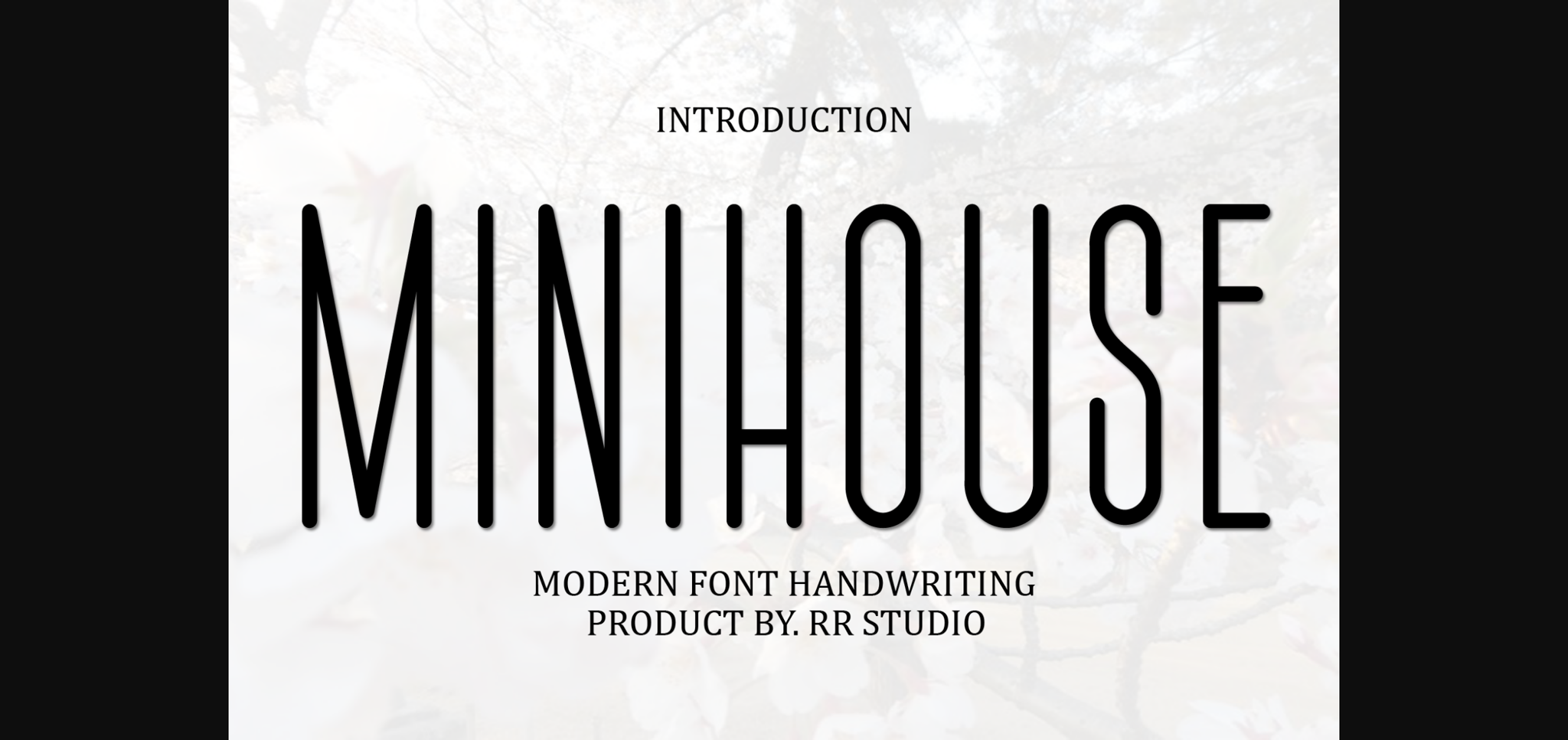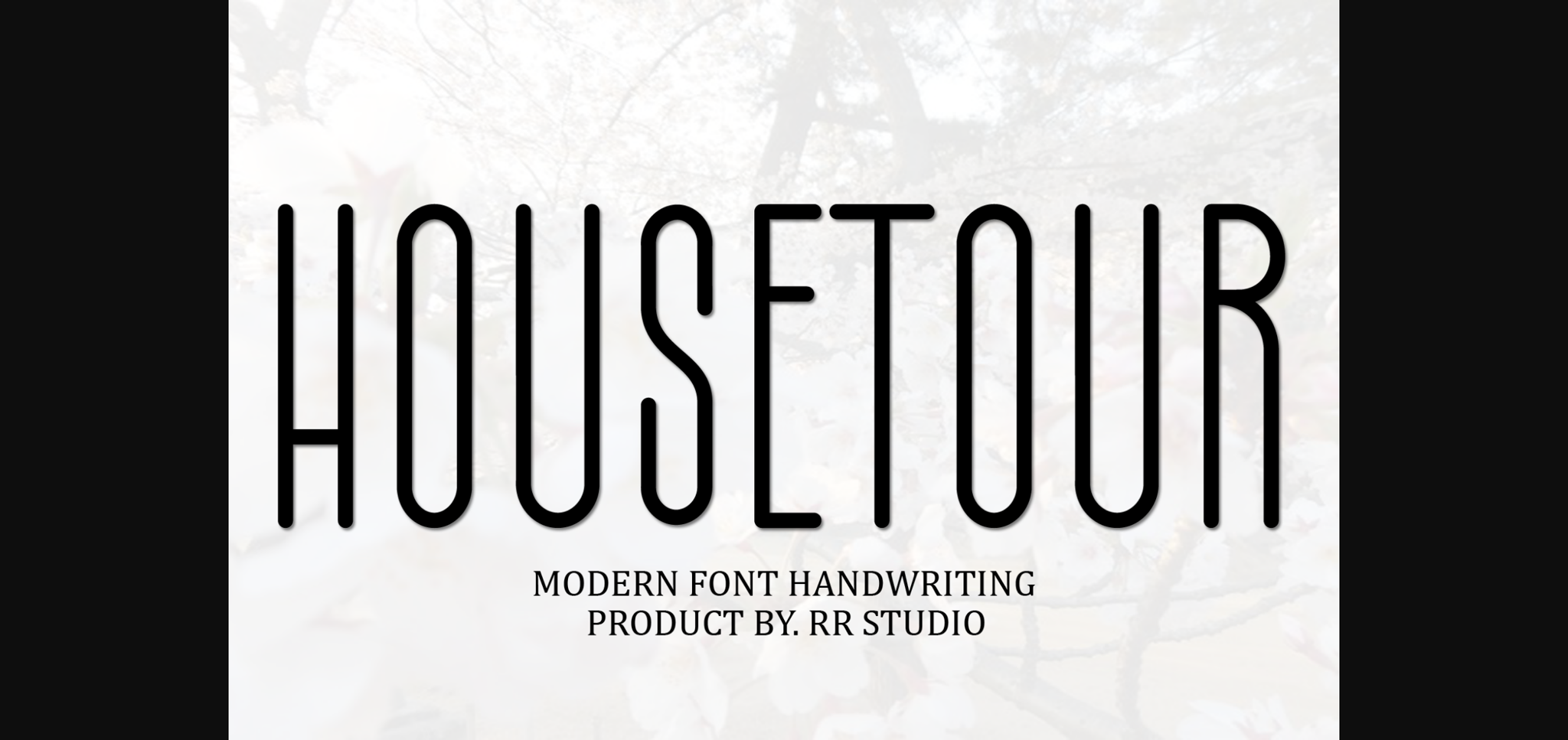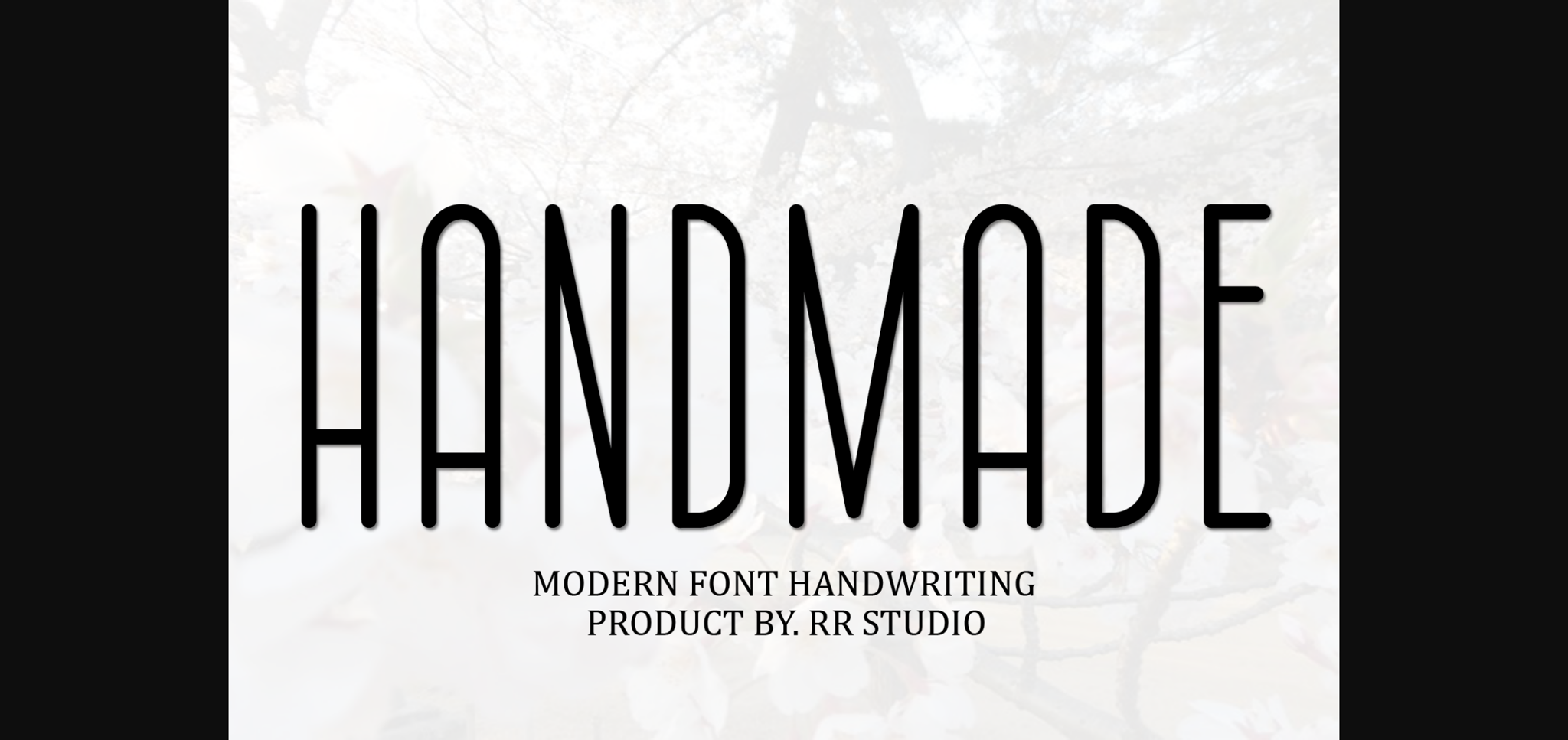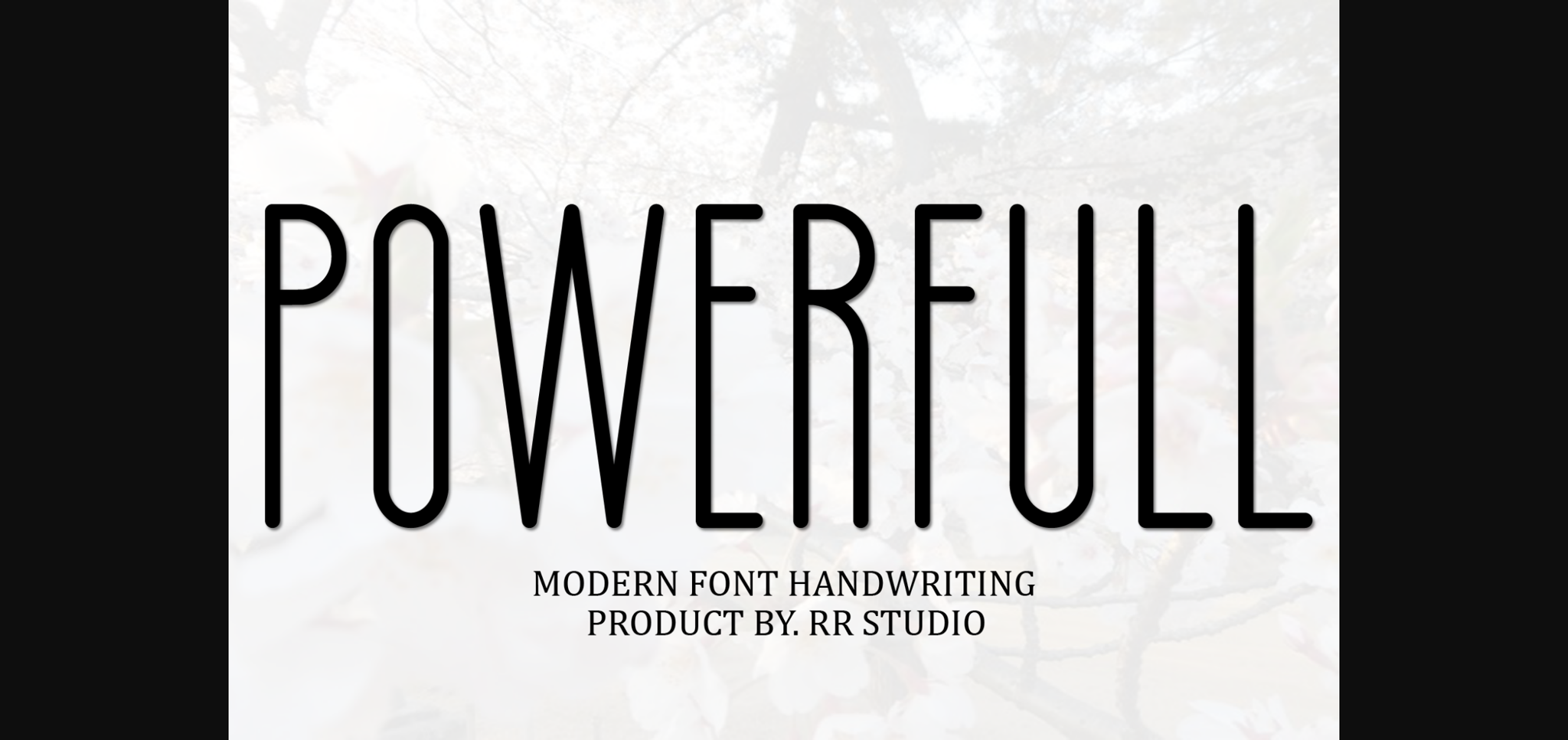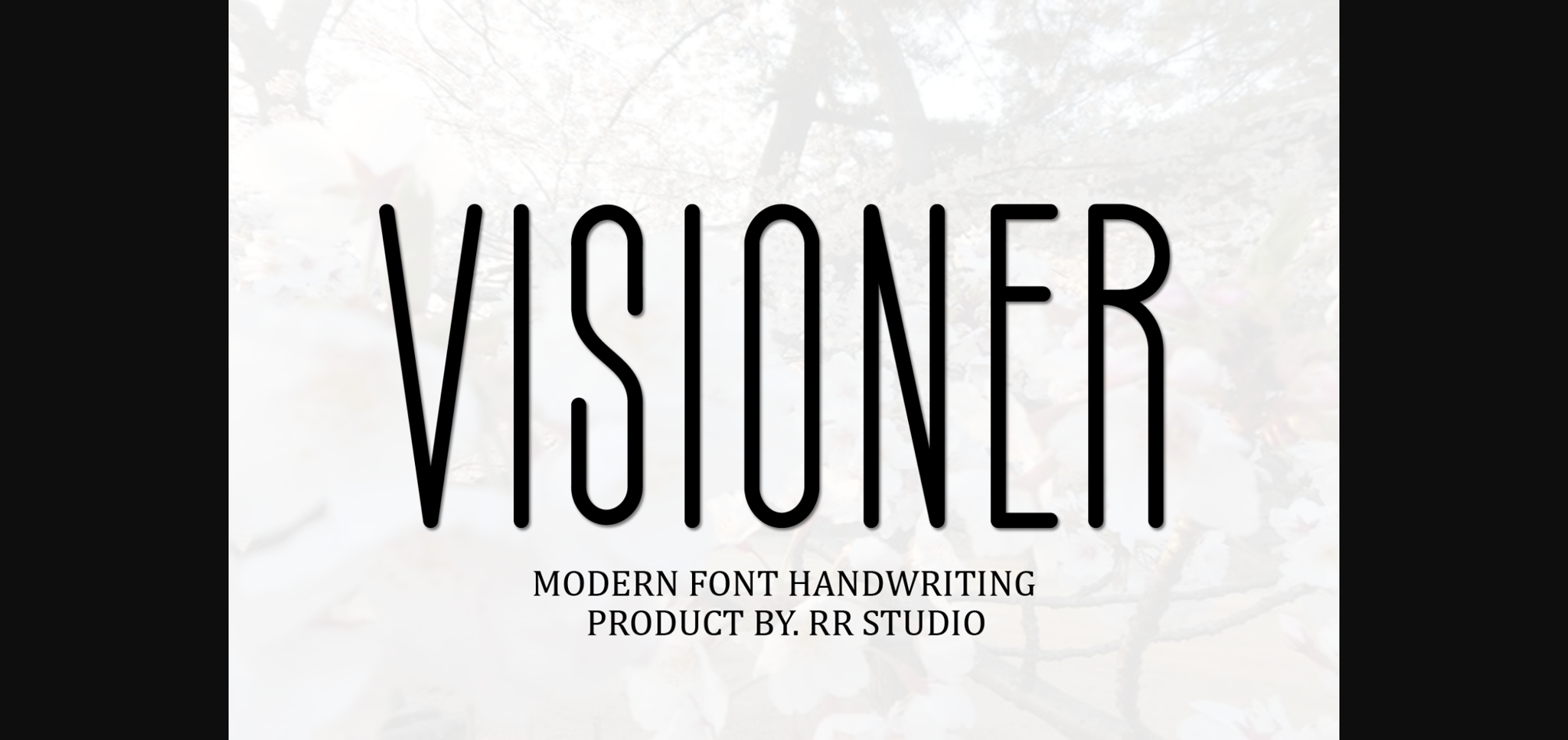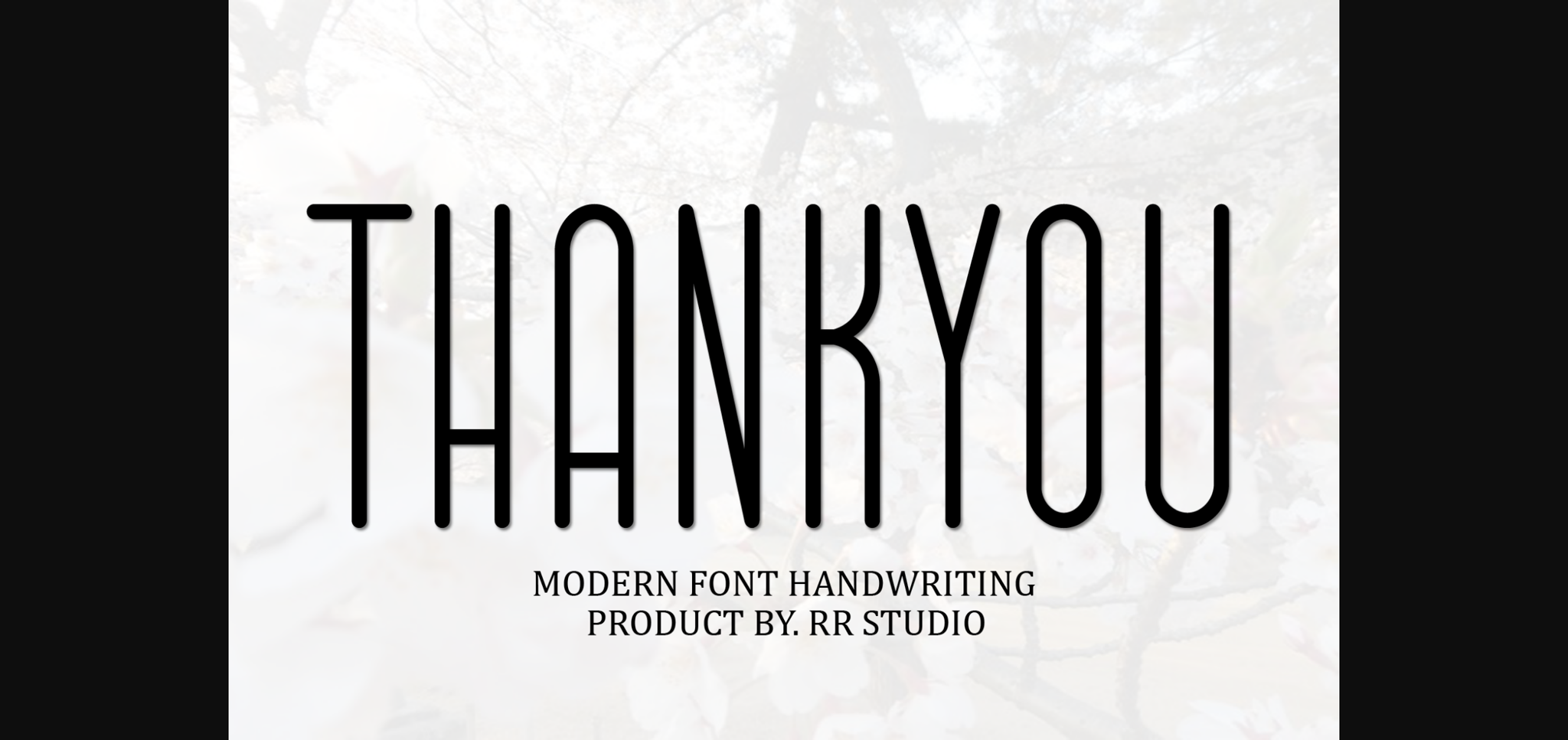
HomeSans Serif FontsMinihouse Font Sans Serif Fonts Minihouse Font FacebookXPinterestWhatsApp 1 of 8 ... Minihouse Font Poster 2... Minihouse Font Poster 3... Minihouse Font Poster 4... Minihouse Font Poster 5... Minihouse Font Poster 6... Minihouse Font Poster 7... Minihouse Font Poster 8... About Minihouse Font Minihouse is a stylish and incredibly elegant sans serif font. It looks stunning on wedding invitations, thank you cards, quotes, greeting cards, logos, business cards and every other design which needs a handwritten touch. DOWNLOAD NOW People also explored Manful Font Apricot Camelia Font Kitchen Story Font Strawberry Scarlett Font Retro Young Font Josy Wine Font Ballita Font BondiSans Font Medison Script Font 278 0 TagsMinihouse Font Previous articleVizarka FontNext articleVisioner Font LEAVE A REPLY Cancel reply Comment: Please enter your comment! Name:* Please enter your name here Email:* You have entered an incorrect email address! Please enter your email address here Website: Save my name, email, and website in this browser for the next time I comment. Personal Use Free Andolas Personal Use Free Read more about this font Romantic February Personal Use Free Read more about this font Kaysan Personal Use Free Read more about this font Makeba Font Personal Use Free Read more about this font BLOG How to Cut Any Font on Cricut: Convert a Font to SVG (Free) Turn any font into a clean SVG so it cuts crisp on Cricut - a quick 3-step workflow using a free font-to-SVG tool. Exploring Font Trends How to Install and Use Fonts on Windows, macOS, and Web Projects Transform Your Website: Elevate Your Typography with 7 Best Web Font Generators